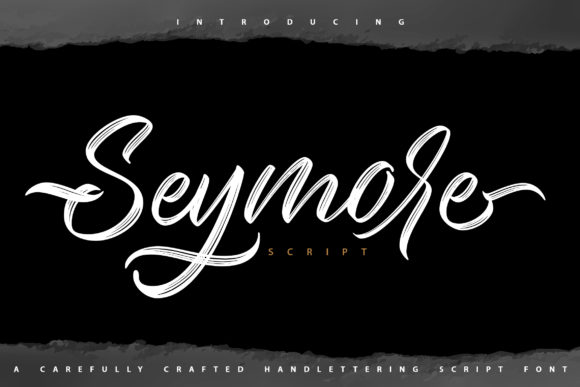
Journey into the realm of exquisite typography with Seymore Font, a captivating handwritten font that breathes life into your creative projects. Its enchanting strokes, reminiscent of a calligrapher's artistry, infuse a touch of elegance and charm into every design. Seymore Font belongs to the illustrious script font family, renowned for its graceful curves and flowing lines. It's a font that captures the essence of handwritten letters, adding a personal and heartfelt touch to your designs.
As you explore the depths of Seymore's character set, you'll discover an array of captivating letterforms, each meticulously crafted to evoke a sense of artistry and authenticity. The capital letters exude a stately presence, their bold strokes commanding attention and establishing a strong visual foundation for your designs. The lowercase letters, on the other hand, dance across the page with a playful charm, their delicate flourishes adding a touch of whimsy and delight.
But it's in the details that Seymore truly shines. Each letter is adorned with intricate embellishments, like tiny works of art that elevate the font's overall aesthetic. These details are not merely decorative; they imbue Seymore with a sense of depth and texture, creating a visually engaging experience that captivates the viewer's attention.
Whether you're designing logos, branding materials, invitations, or any other creative project, Seymore Font is your steadfast companion. It effortlessly adapts to a wide range of design styles, from the classic and timeless to the modern and edgy. Its versatility makes it a valuable asset for any designer's toolkit, allowing you to effortlessly elevate your designs and leave a lasting impression.
Embrace the allure of Seymore Font and unlock a world of creative possibilities. Let its graceful strokes guide you as you weave enchanting stories through your designs. Experience the joy of creating designs that resonate with your audience, leaving them captivated by the beauty of your typography.